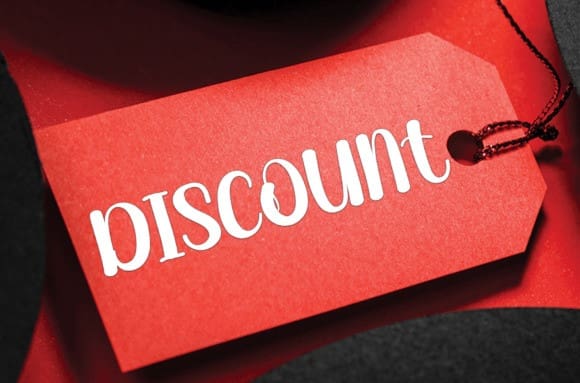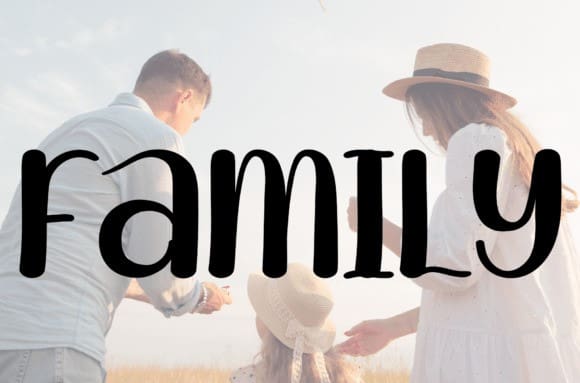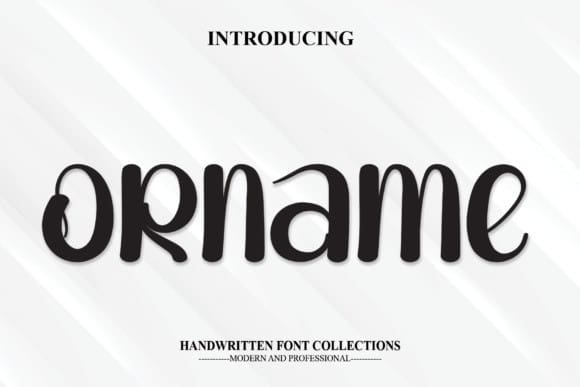
Orname Fun Font
Orname Fun Font is a sweet and friendly handwritten font. Fun and relaxed, this font is ideal for writing wedding invitations, cards, or any other design that might need a joyful touch!